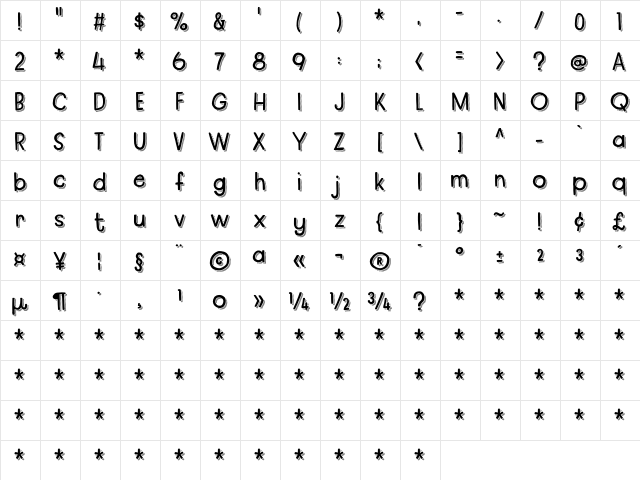
Regular Fashion DEMO Regular
Design Context for Regular Fashion DEMO Typeface
Regular Fashion DEMO is a composed and adaptable typeface that performs quietly and consistently across a wide range of design contexts.